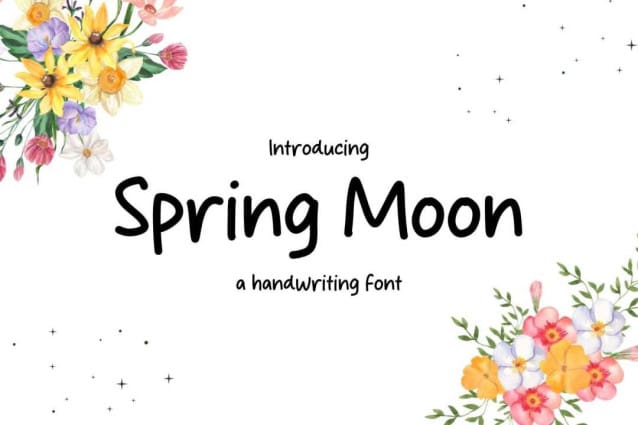
Spring Moon Font
Spring Moon Font, is a casual and friendly handwritten font. This font will brighten up each of your designs. Add it confidently to your projects, and you will love the results.